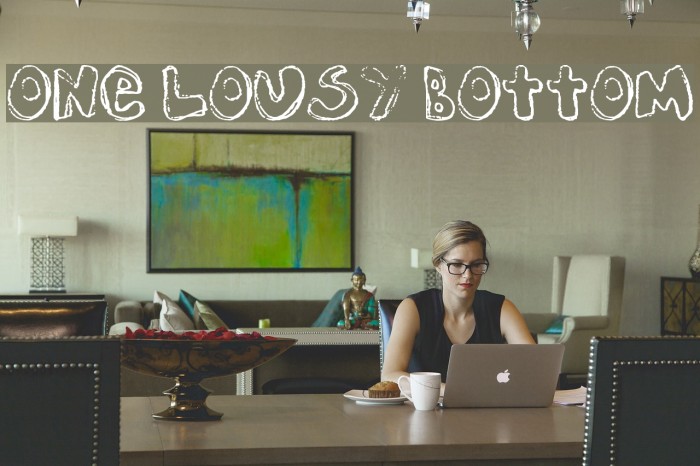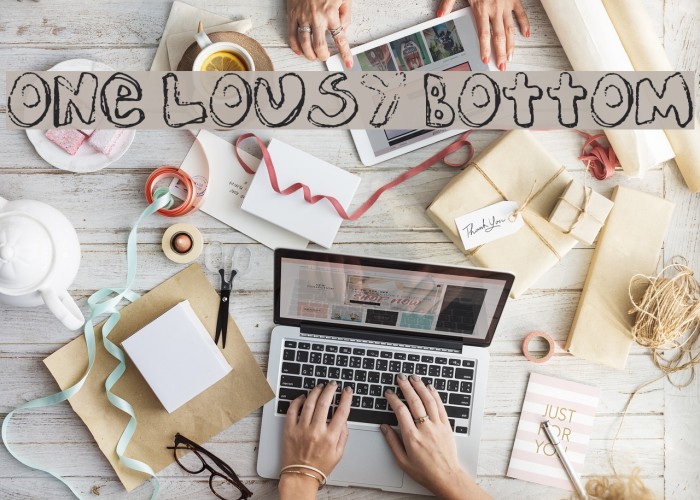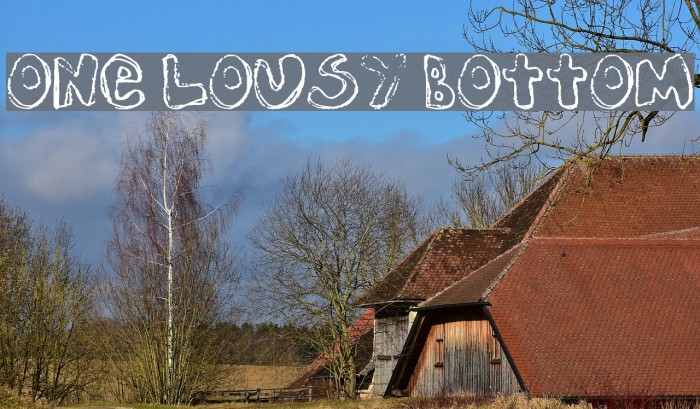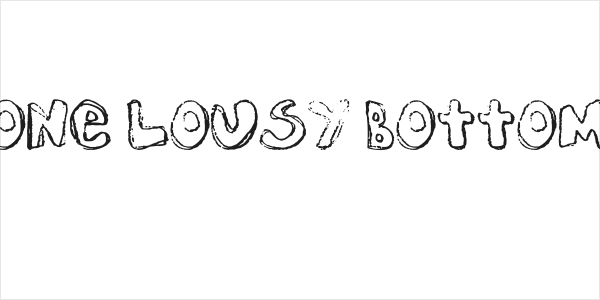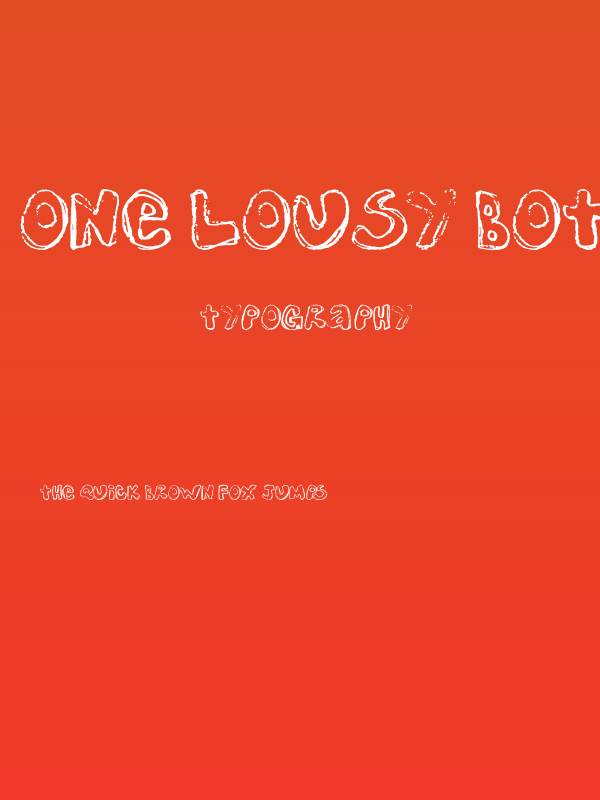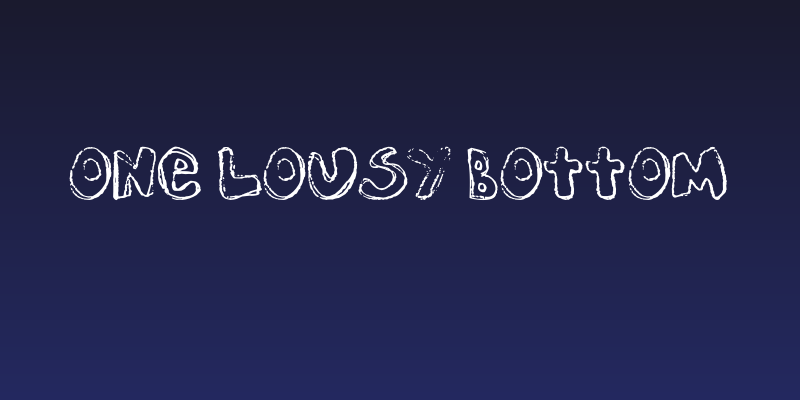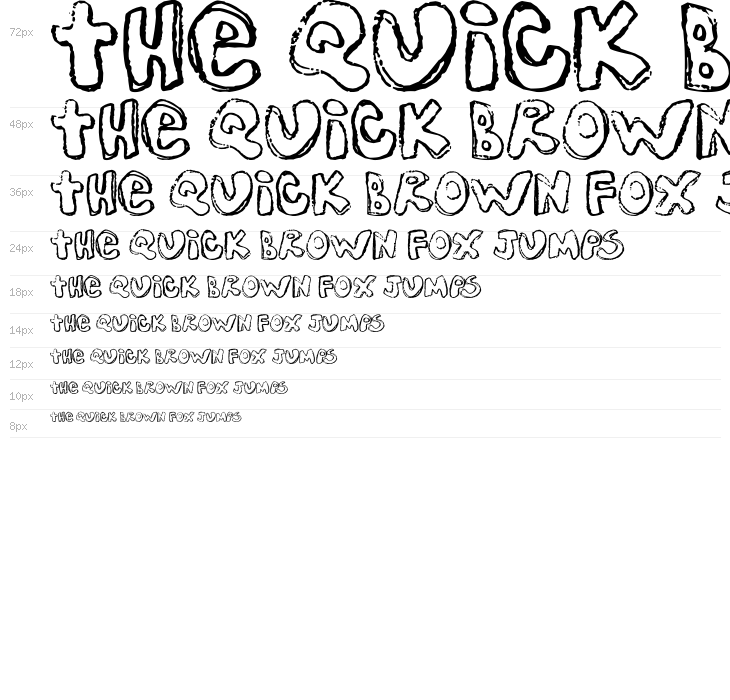
One Lousy Bottom Font
One Lousy Bottom Description
This font features a playful and informal style, characterized by its bold, hand-drawn appearance. The letters have a slightly uneven and wavy outline, giving them a whimsical and artistic feel. The strokes are thick and consistent, creating a strong visual impact. The texture within the letters adds a distressed, grunge-like effect, enhancing its casual and laid-back vibe. This font is perfect for projects that require a fun and creative touch, such as children's books, posters, or any design that aims to convey a sense of humor and lightheartedness.
| Overall Style | Playful, Artistic |
| Use Case | Headlines, Posters, Creative Projects |
| Proposed Projects | Ideal for children's books, playful posters, creative branding, and casual invitations. |